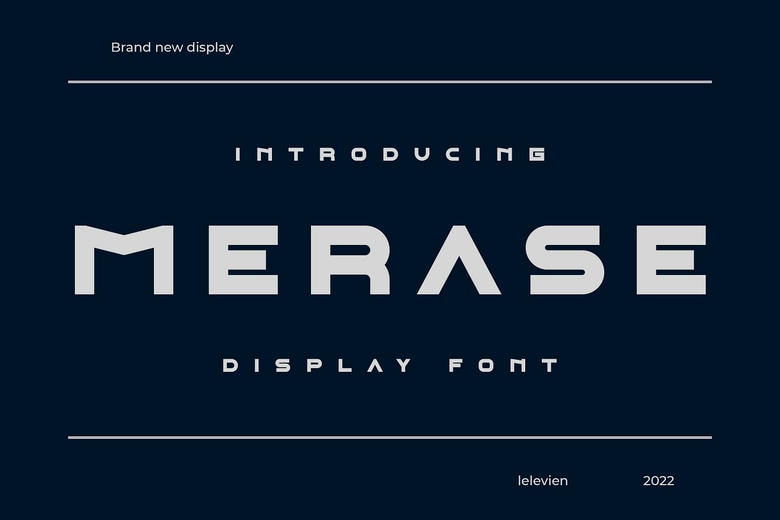
Merase Font
Merase is a cool and unique display font. This font is neatly crafted and highly detailed. Regardless of the subject, this font will be a great addition to your font collection, as it can improve any work.
Merase Display Font